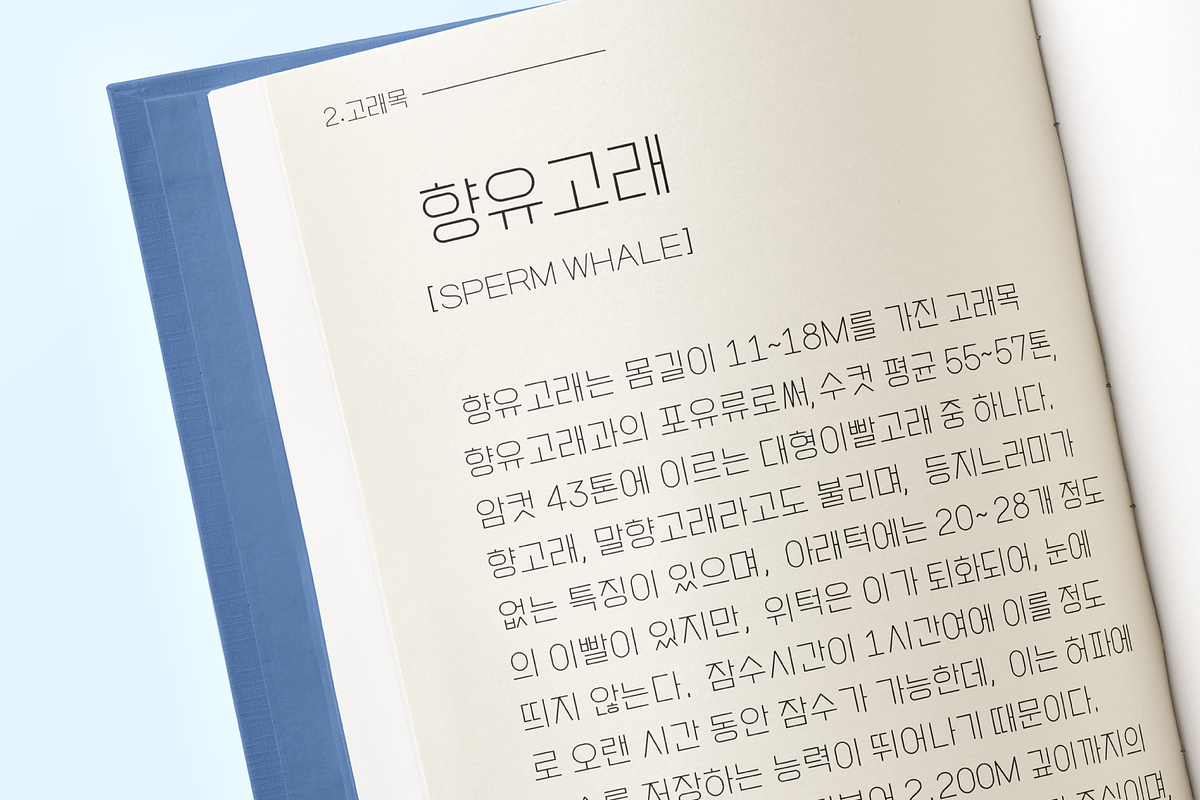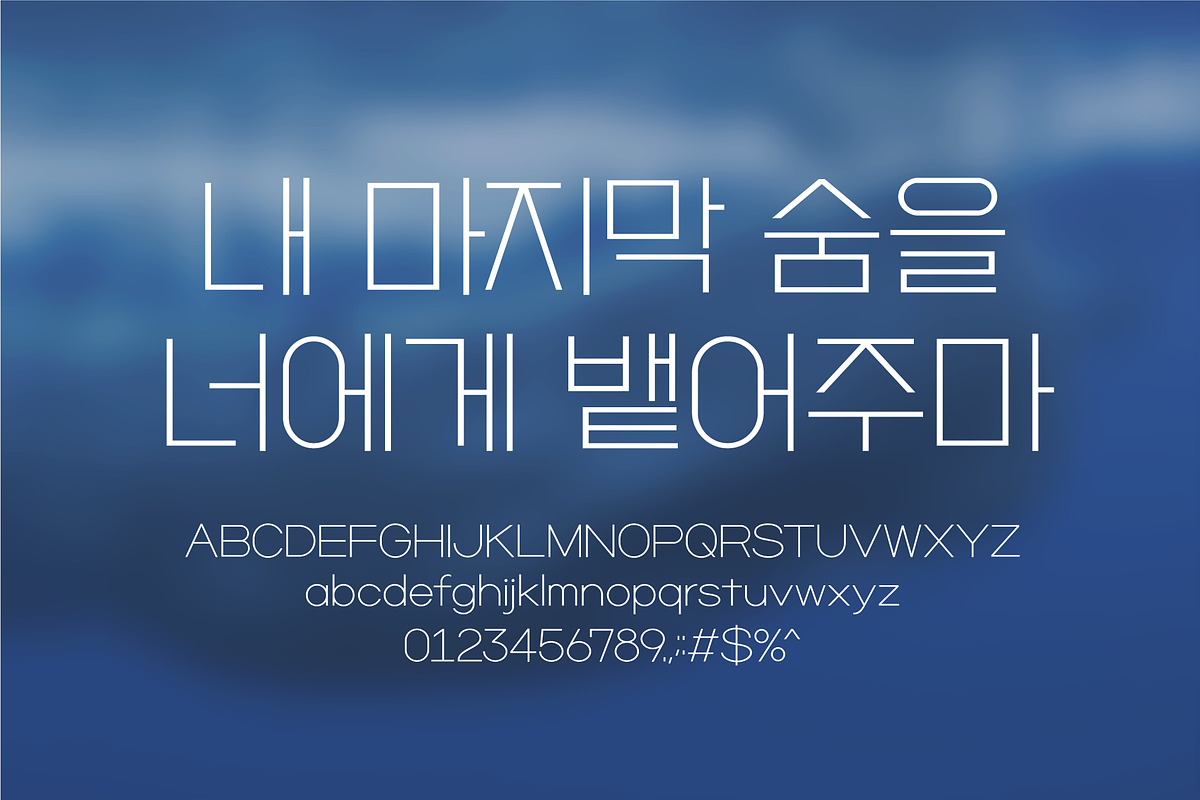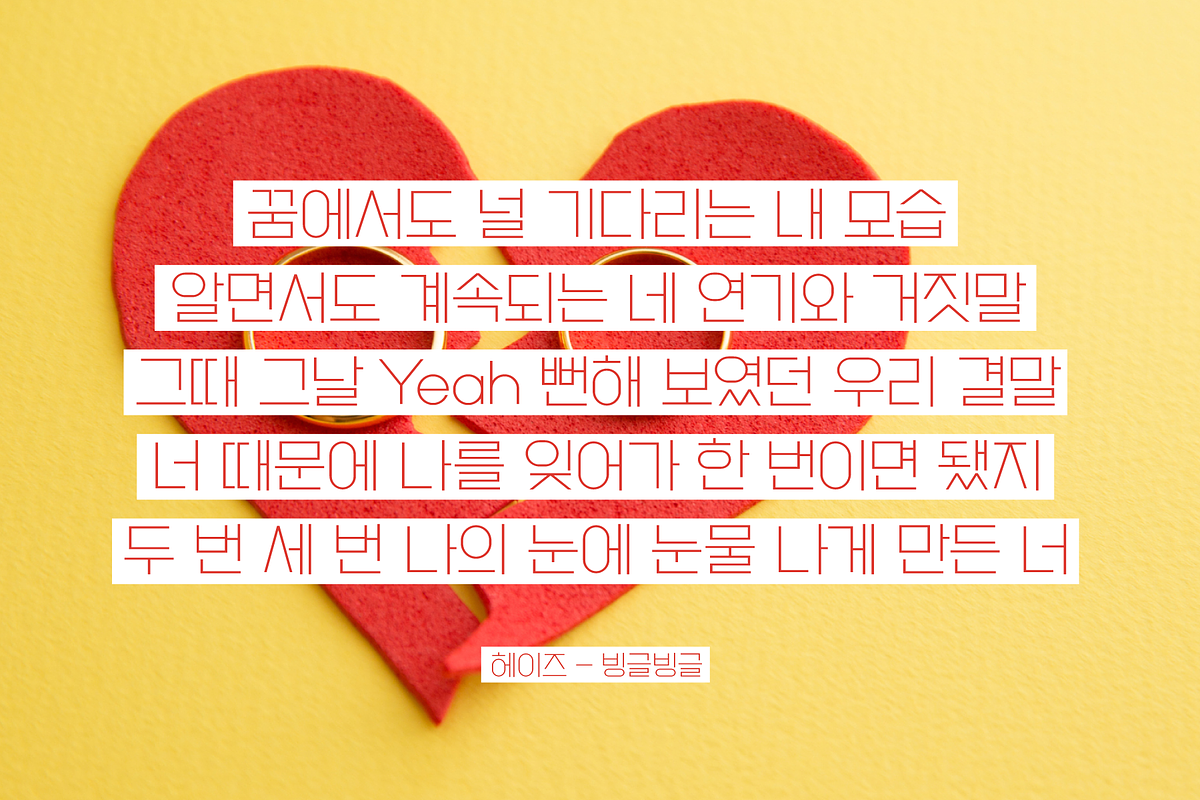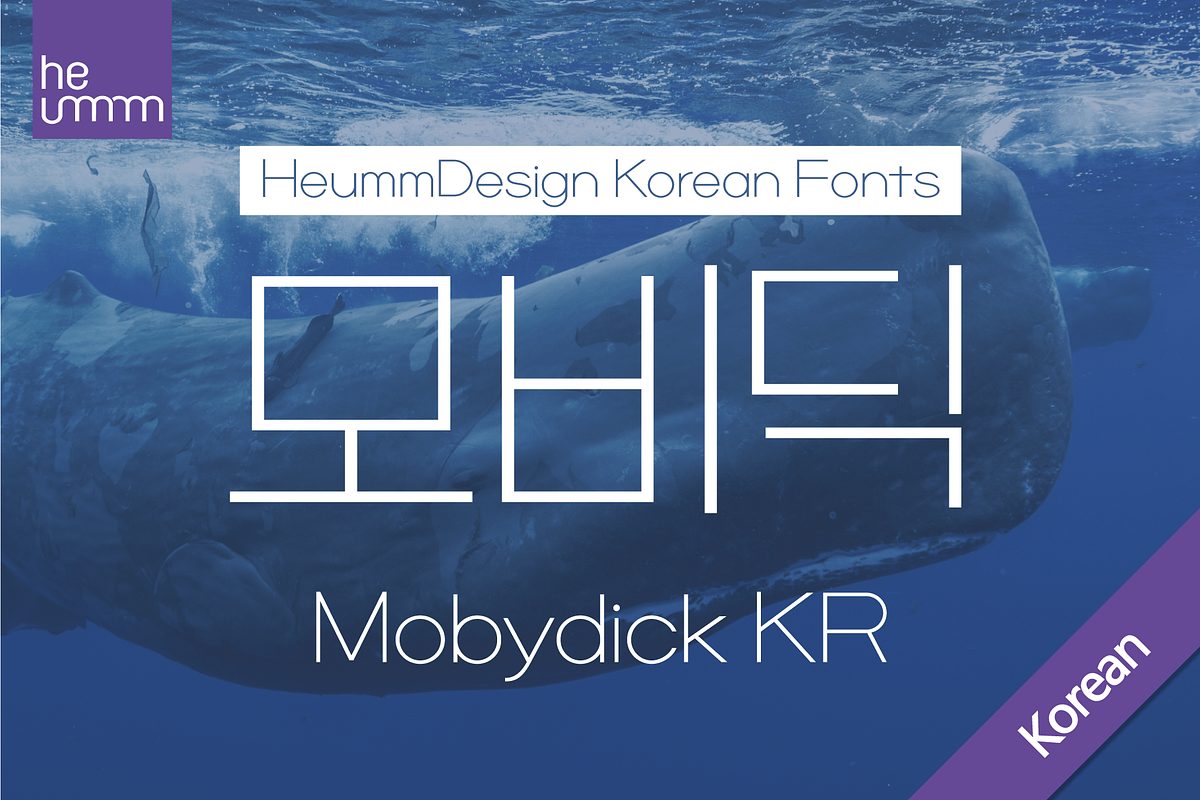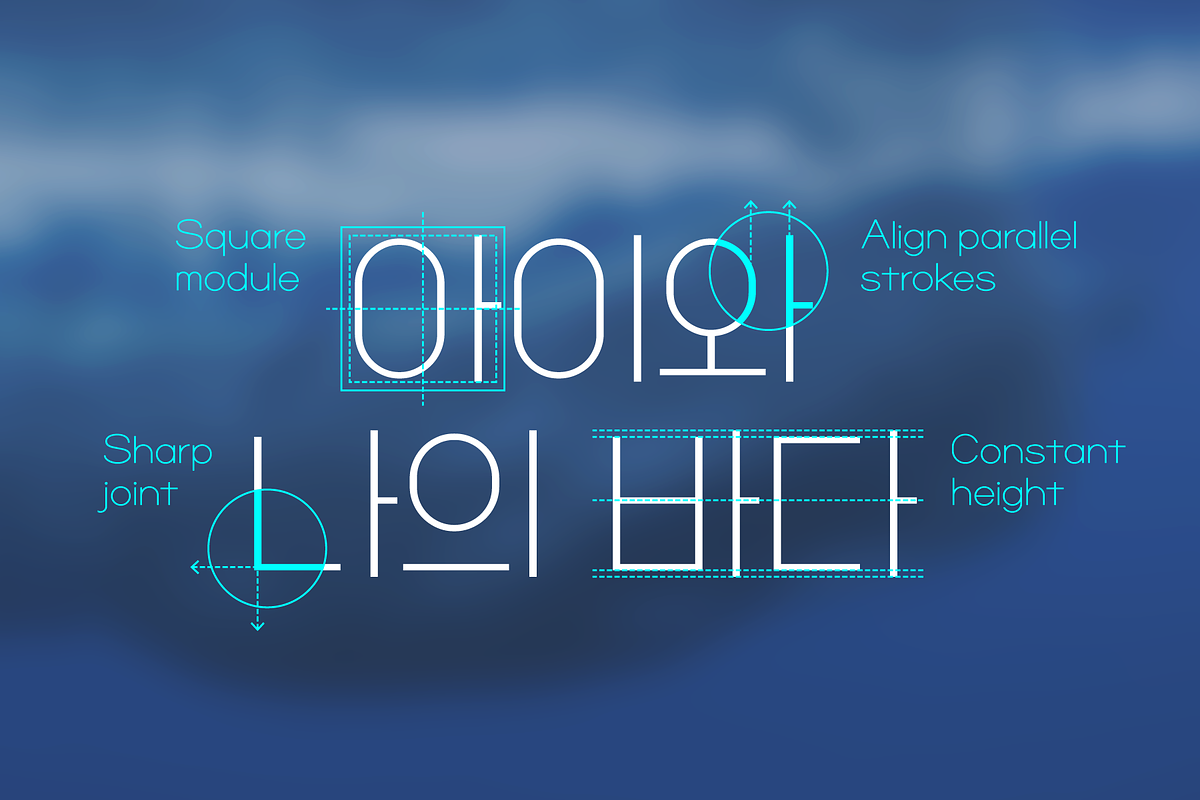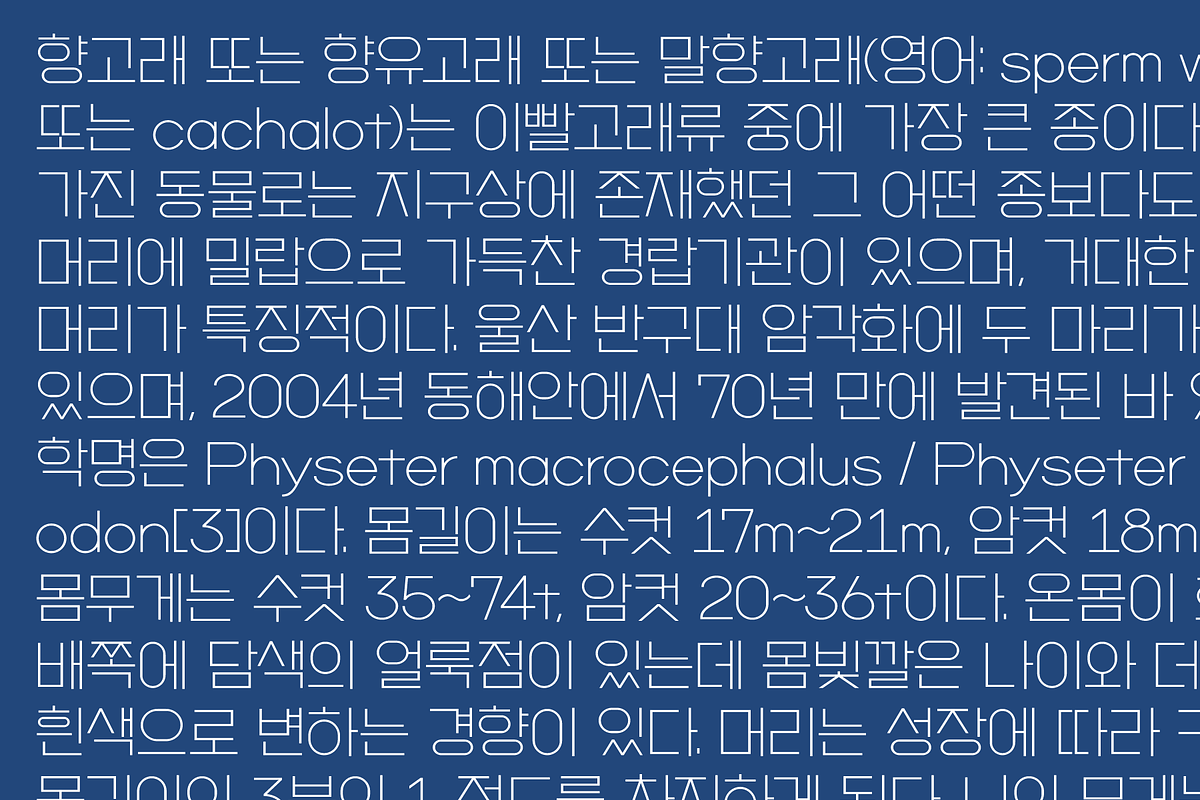
HU Mobydick KR is a body font with square modules and a wide space composition.
Sharp right-angled joints and strong endings. And thin strokes are combined to complete a harmonious typeface for body text. The gray level of the body text is set low, so it can be used for light work.
Korean is included.
There is 1 weight of HU Mobydick KR : Light